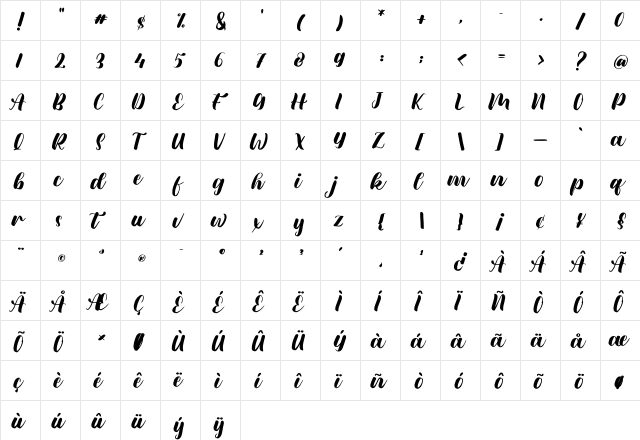
Meylani Regular
| Designer | Fatmawati |
Design Context for Meylani Typeface
Meylani is a composed and adaptable typeface that performs quietly and consistently across a wide range of design contexts.